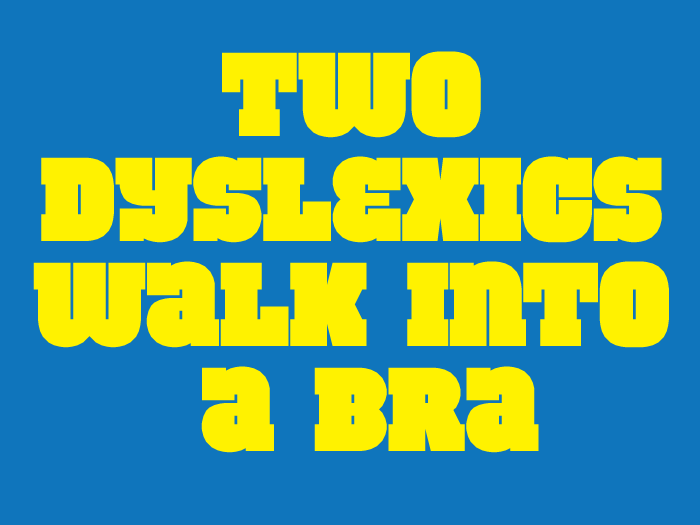
Great bold font, though a bit hard to see on the preview window because of the funny patterns it makes. I especially like the E!
I just had a little more fun with this super fat slab serif. This is a work in progress. More glyphs to come.
@V. Sarela (Yautja): Thank you for your comment. The pattern in the preview window is an artifact of HTML5 rendering. I've made a demo to show the real appearance of the font, kerning included.
bold and beautiful. love the constrast between the heavy body and slim openings and tight spacing.
A great variation on an already beautiful font. That E is indeed wonderful. A lowercase-style e could make an interesting alternate character.
@four: Thank you for your comment. I heard you and made an alternate "e" as suggested.
Can you add Æ?
@Brynda: There is a technical reason I couldn't add the æ glyph, yet. It's not that I've never tried; to the contrary. The results were underwhelming, however. The overshoot of both primary glyphs (a, e) makes it complicated. The original version of Esgaroth features an Æ glyph if that's any solace.
Can i see that attempt?
Lowercase variation of G, Q, R, and T.
@Brynda: The unsuccessful æ glyph candidates have been deleted. There ain't no use to keep them. LC variations of G, Q, R, T: I have no plans to add more lower case alternates. Unicase is a gimmick to attract attention by creating an unusual mix of lc and capital letters. As with any visual tricks, it should be subtle in order to be most effective.
What do you think about this new Y alternate?
Wow!! That is a really nice alt.
Awesome, that's great. This is a really expressive slab with beautiful curves and clear proportions. 10/10 + ❤︎